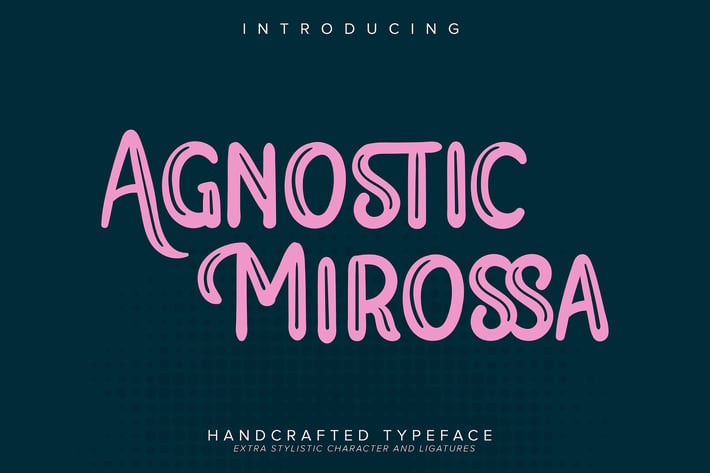
Agnostic Mirossa | Handcrafted Typeface
Agnostic Mirossa | Handcrafted Typeface Font with a calligraphy style, So beautiful on invitation like greeting cards, branding materials, business cards, quotes, posters, and more!